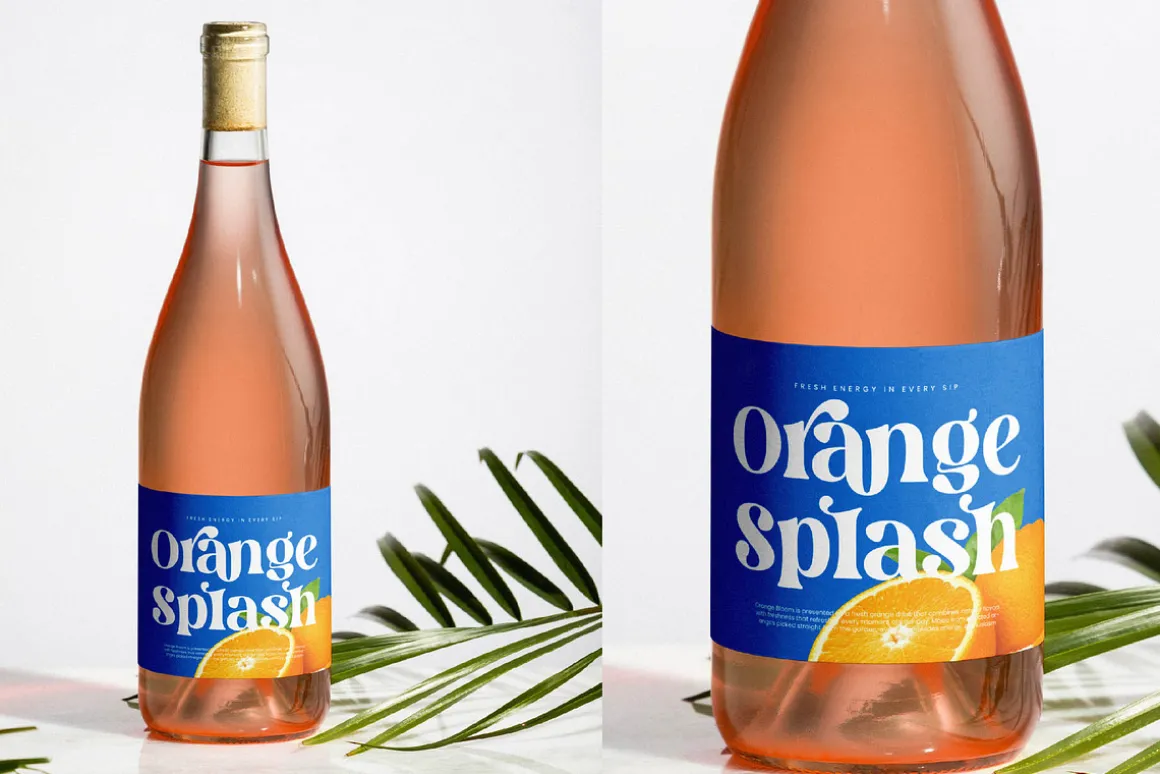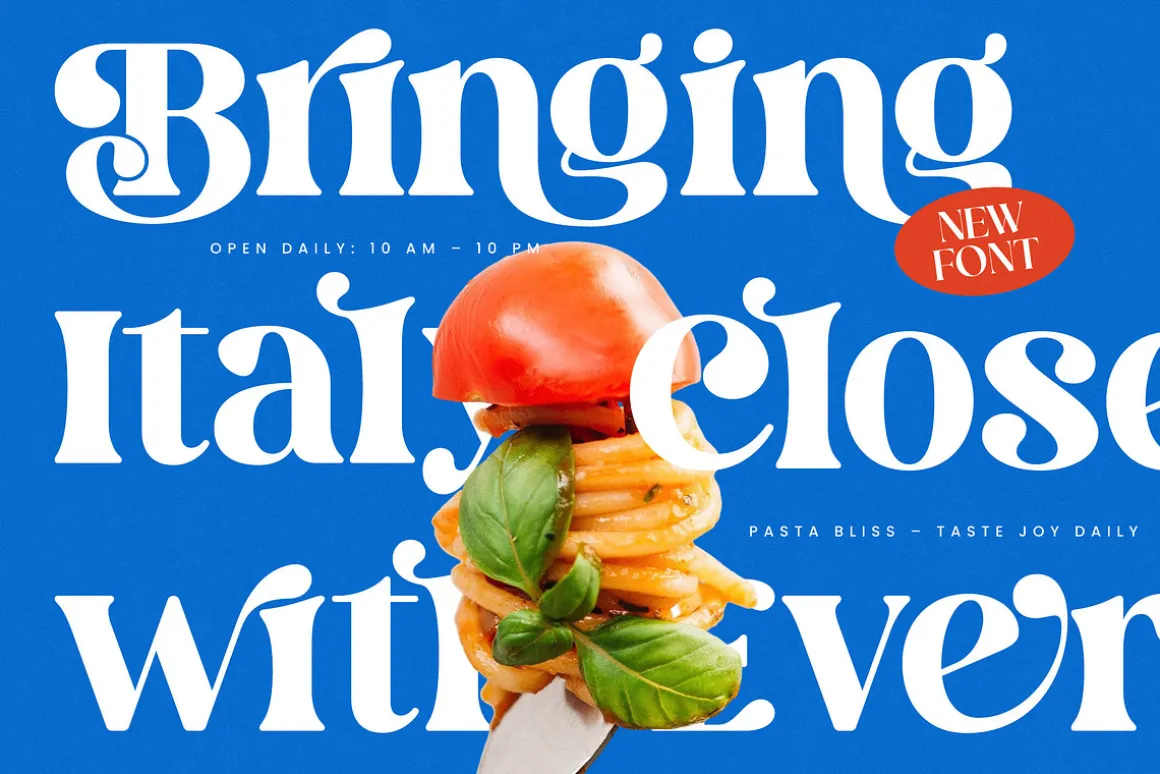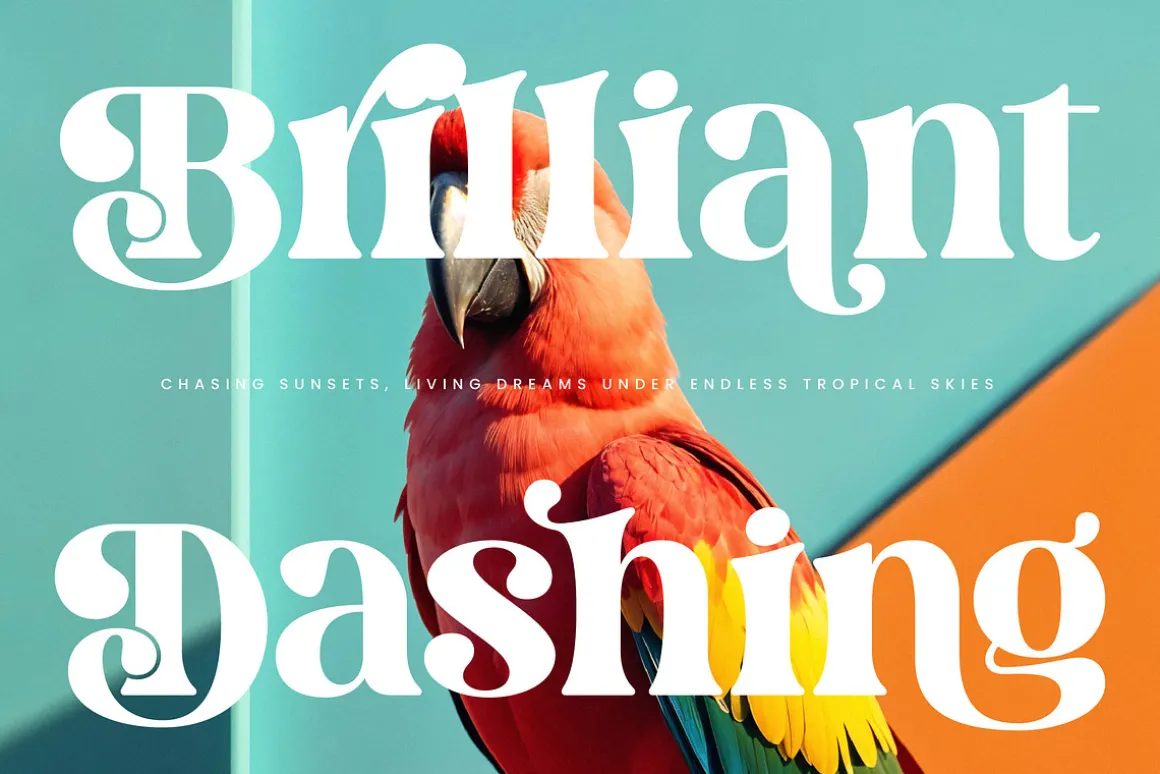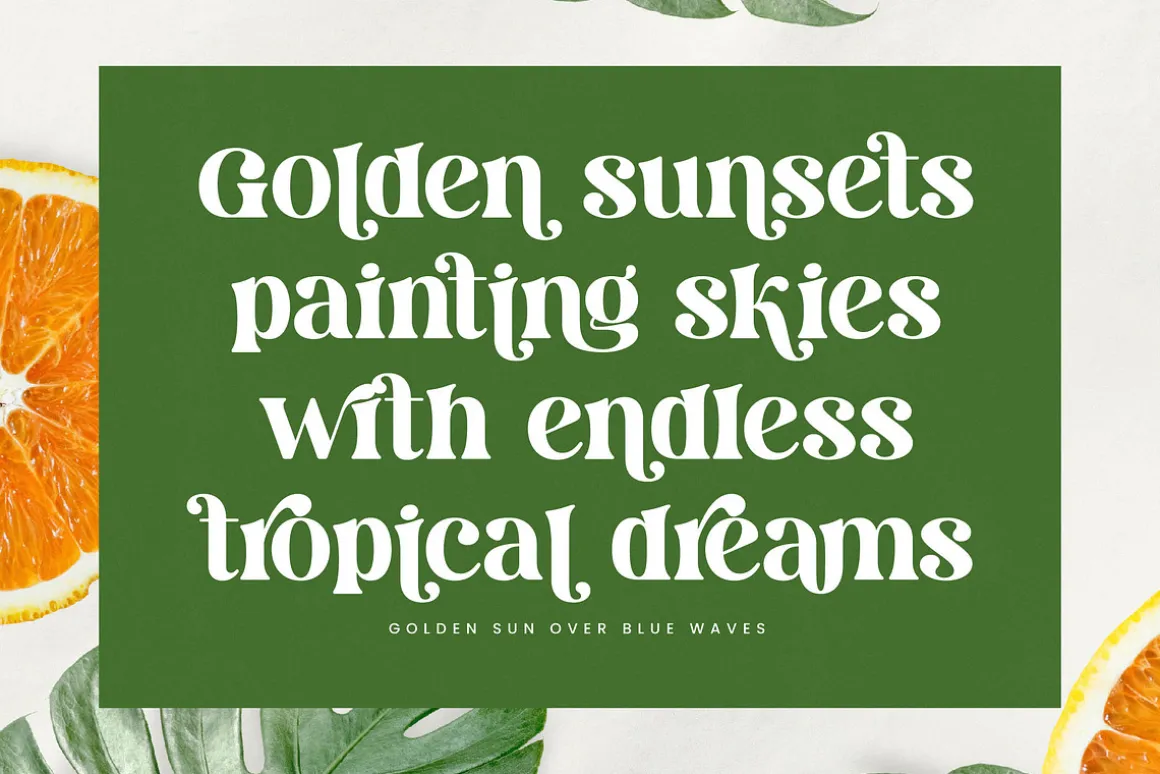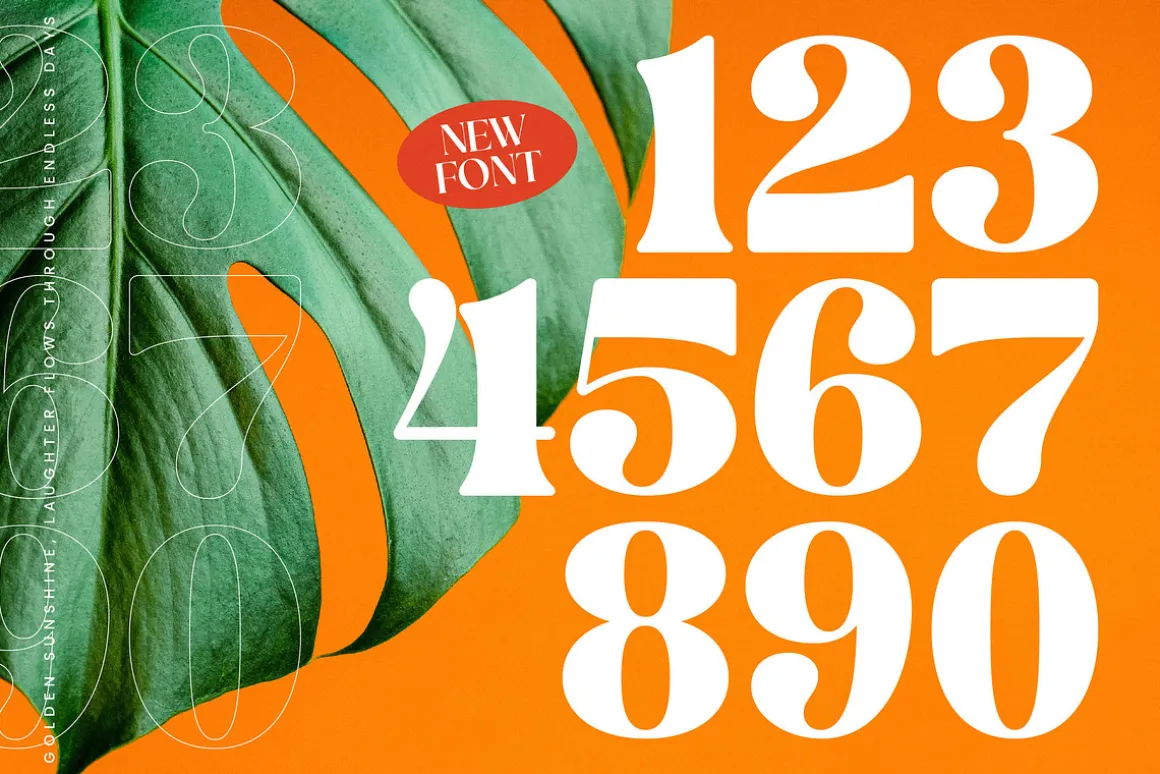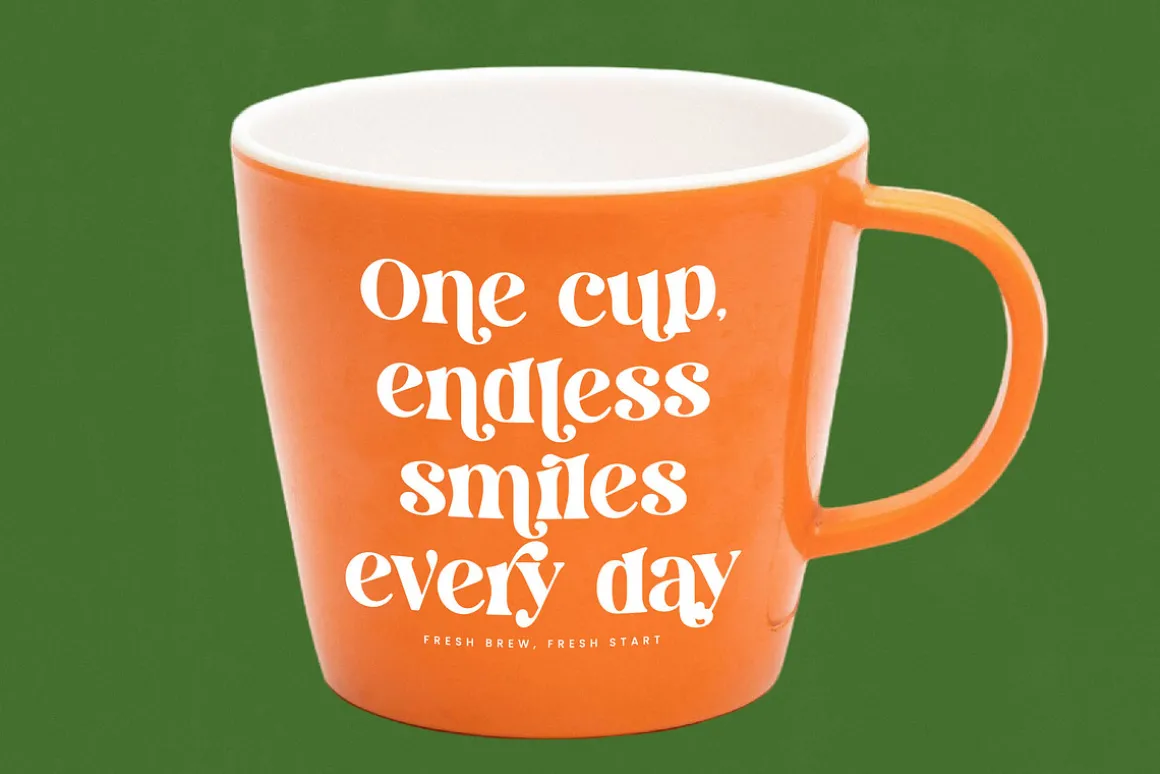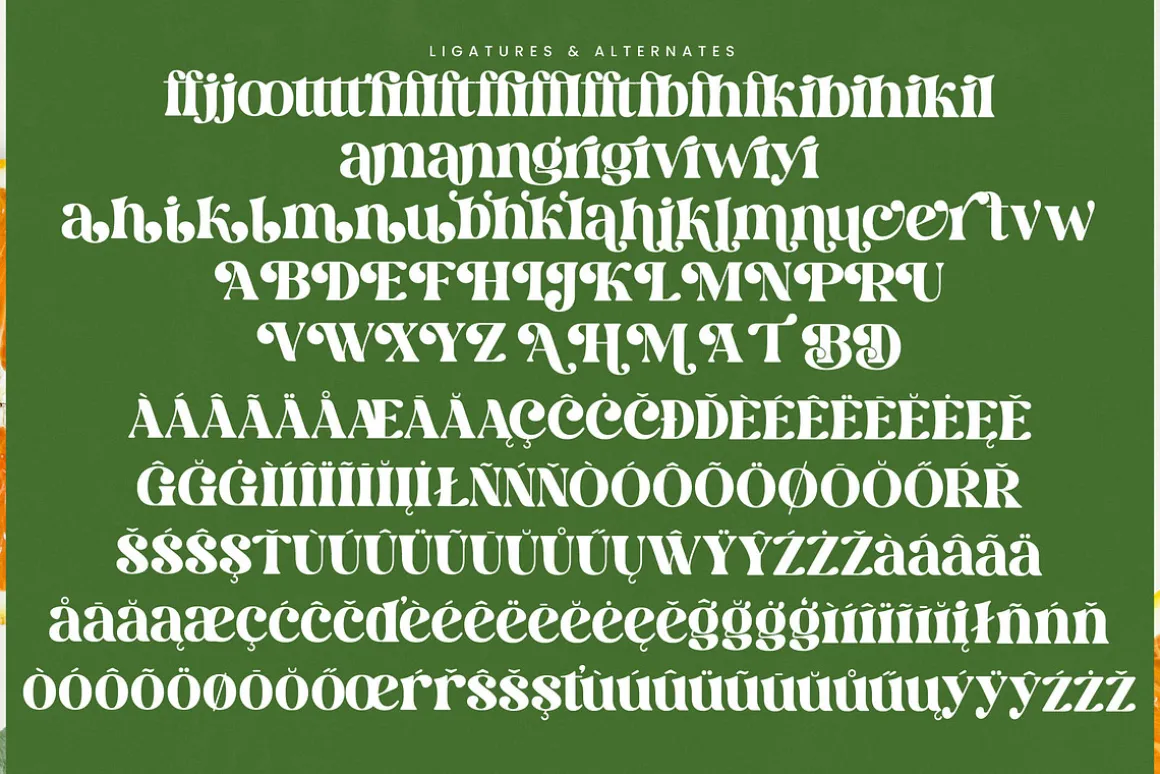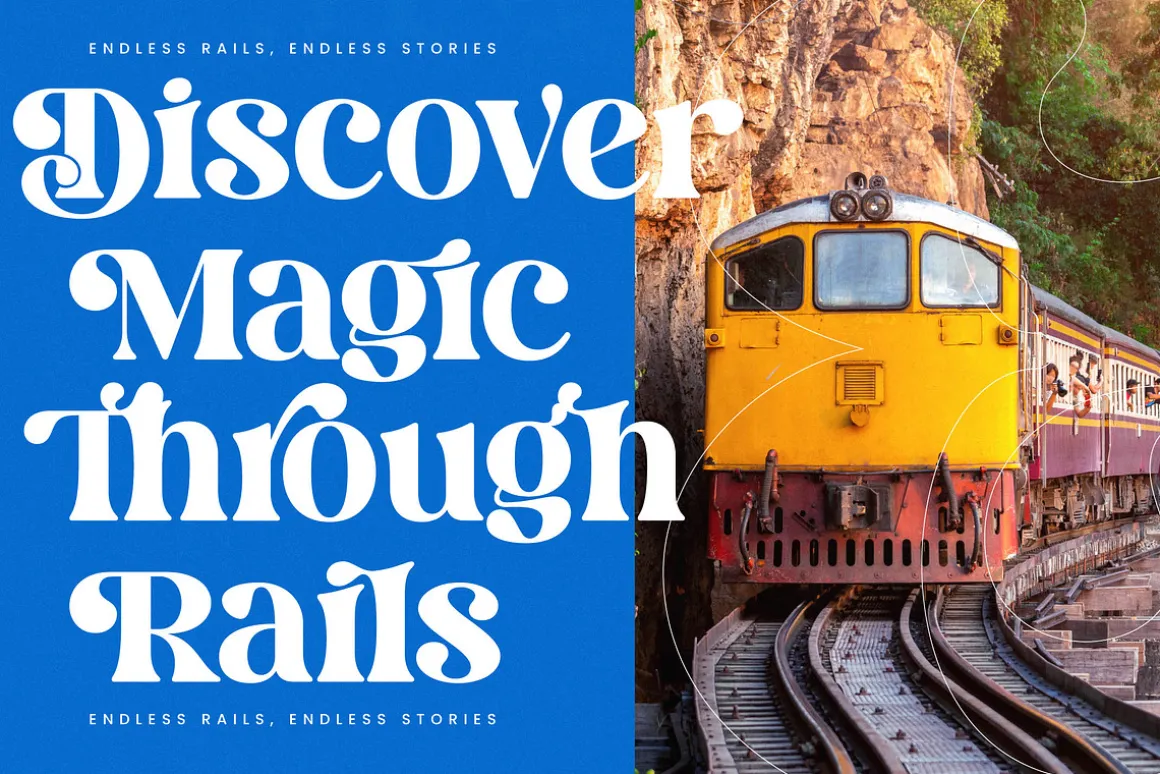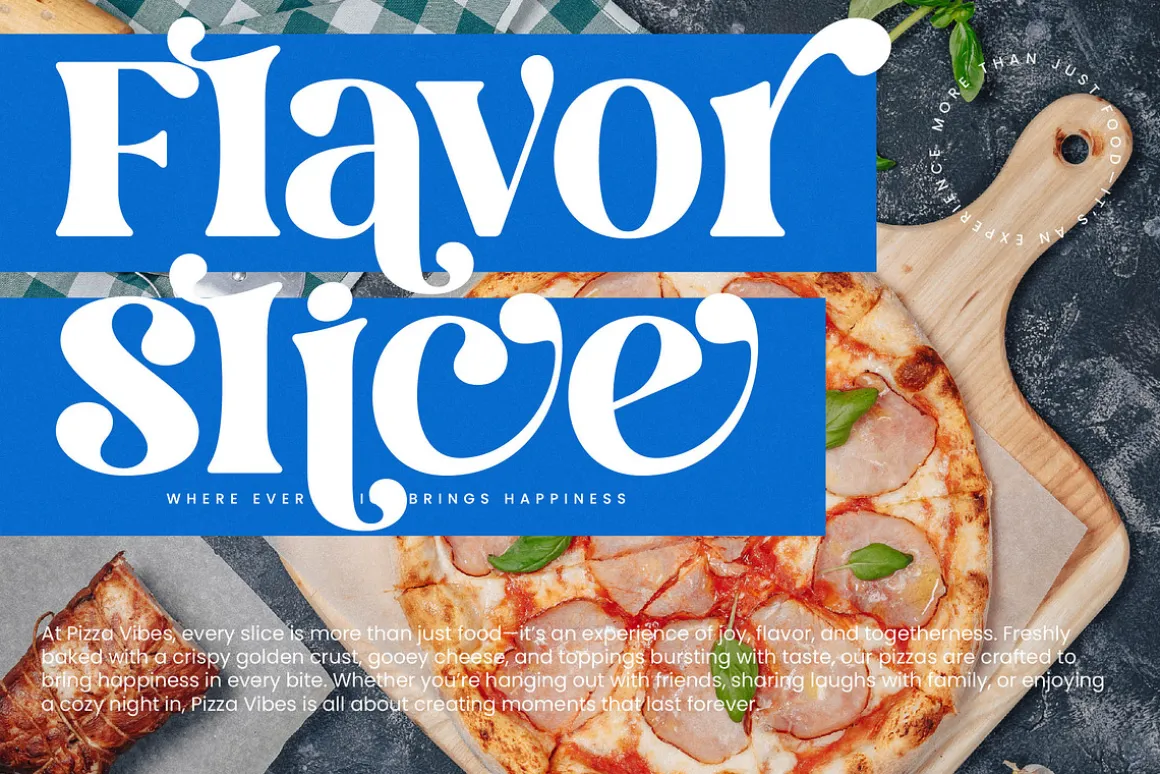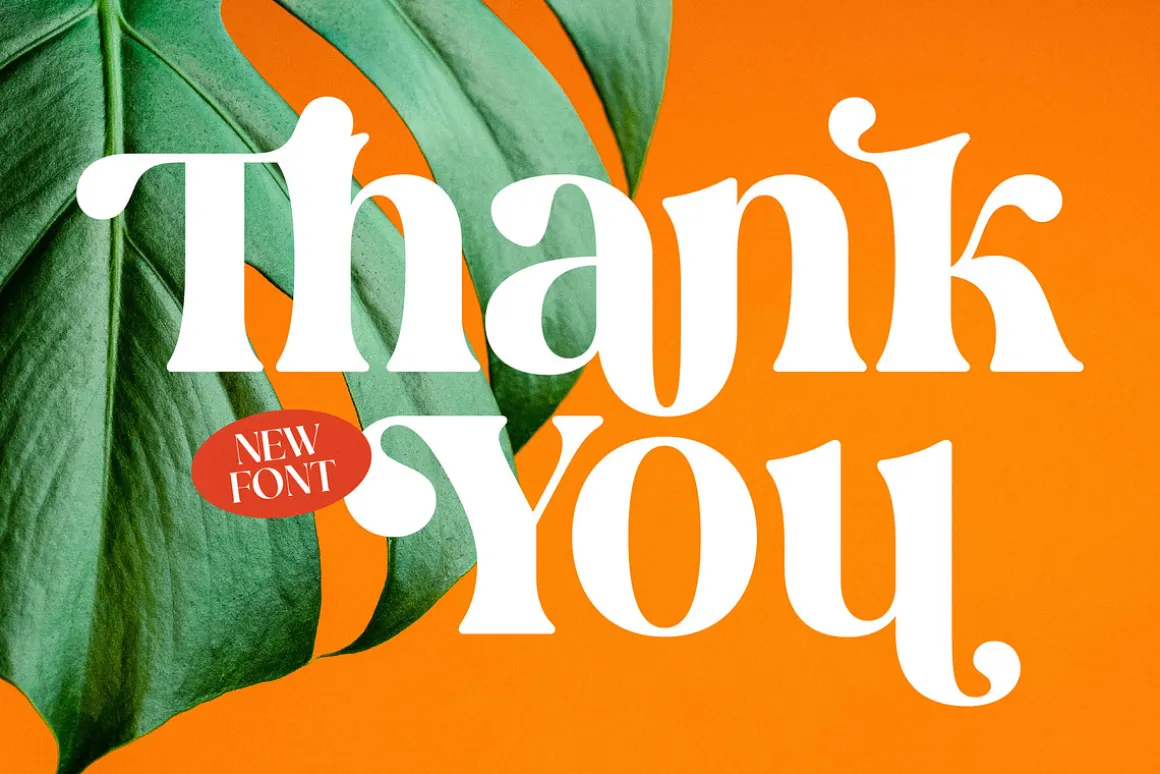
Elevate your creative vision with Dream Silvers, a typeface designed to blend timeless elegance with contemporary flair. This font captures the essence of sophisticated design, making every word look like a curated piece of art.
Inspired by the fluid movements of nature and the bold silhouettes of mid-century editorial design, this typeface feels both organic and structured. It evokes a sun-drenched, botanical atmosphere where luxury meets raw, natural beauty.
With its striking balance of thick and thin strokes, this modern serif display offers an unparalleled luxury typography experience. The high-contrast serif creates a powerful branding impact, making it an essential editorial font for designers who demand excellence.
Staying ahead of the modern serif trend, this typeface taps into the current demand for editorial display fonts. Its unique curves and character-driven typography ensure your projects stand out in a saturated digital landscape.
This versatile font is the perfect choice for high-end logo design, cohesive branding, and sophisticated editorial layouts. It excels in luxury packaging, romantic wedding stationery, and avant-garde fashion magazines.
The package includes a comprehensive set of 26 ligatures and 56 alternates to help you customize every headline. Full multilingual support and a wide array of international characters ensure global compatibility for all your design needs.